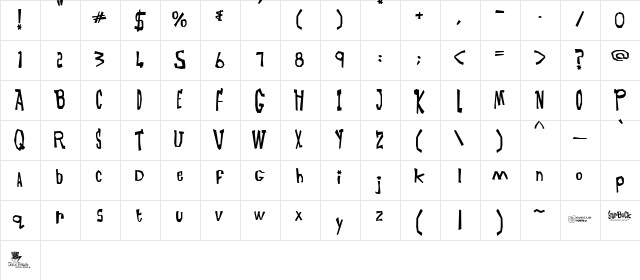
Starbuck Regular
Design Context for Starbuck Typeface
Starbuck is a composed and adaptable typeface that performs quietly and consistently across a wide range of design contexts.